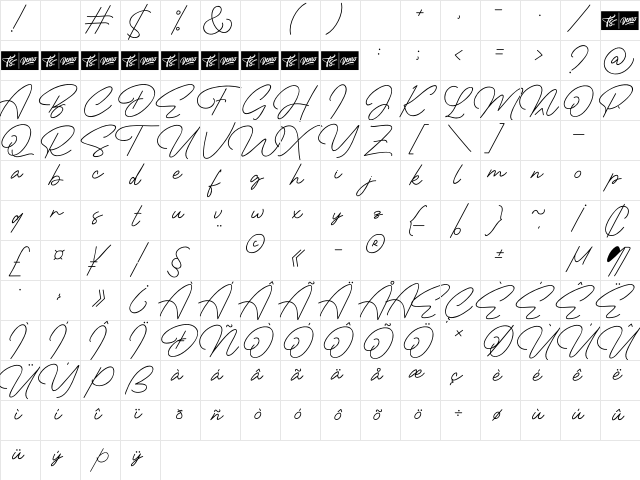
Bilanesa Regular
| Designer | Fahrul Arjianto |
Design Context for Bilanesa Typeface
Bilanesa is a composed and adaptable typeface that performs quietly and consistently across a wide range of design contexts.